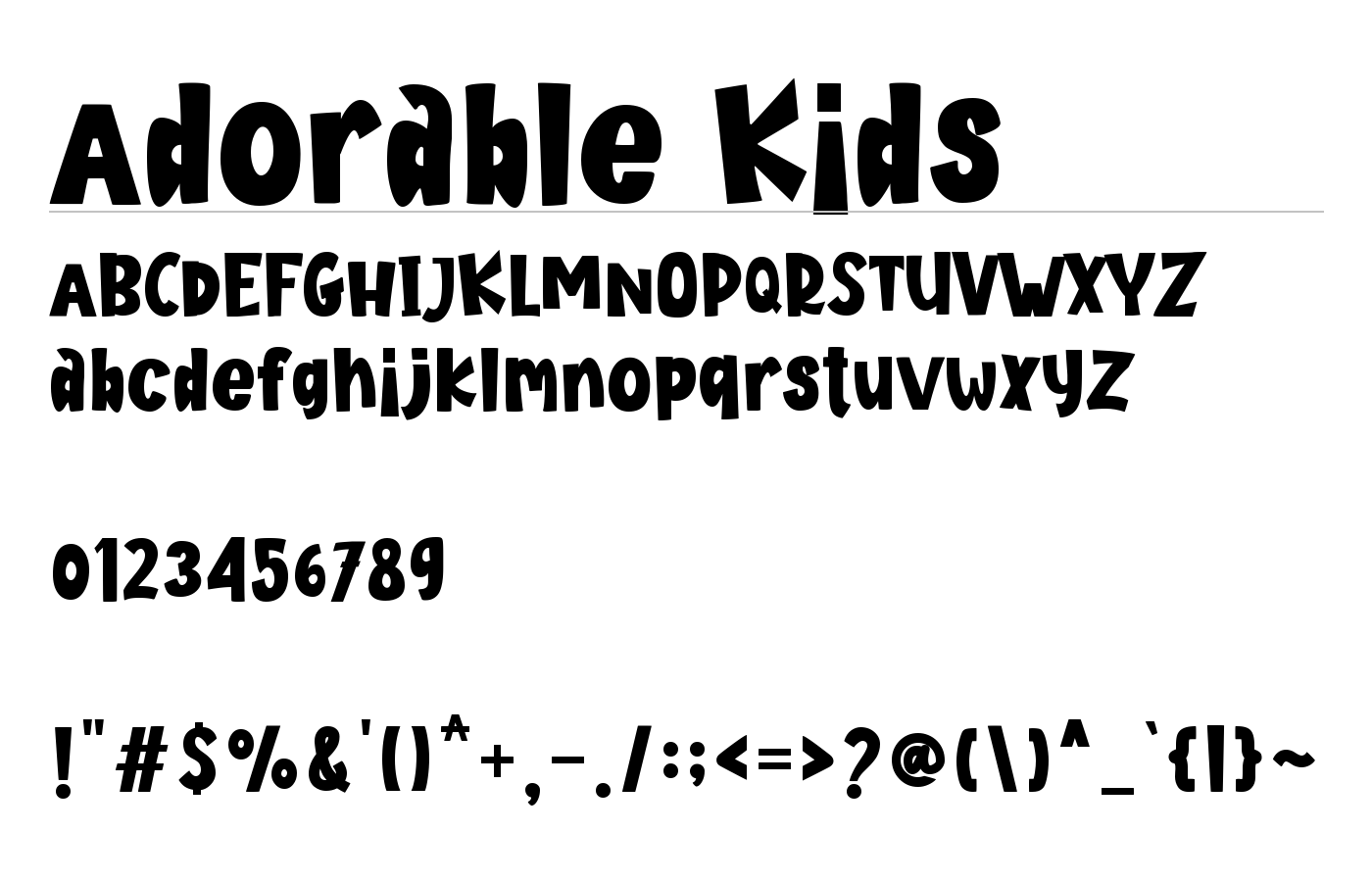
Adorable Kids is a playful sans serif font with bold, chunky letterforms and a whimsical touch that makes it perfect for child-focused designs. Its uneven, slightly quirky shapes and strong presence give it a fun, friendly vibe that works well in logos, posters, and packaging aimed at kids. This font stands out with its energetic personality, making it ideal for capturing joyful and creative moods in youthful branding and editorial projects.
Adorable Kids Font
About Adorable Kids Font